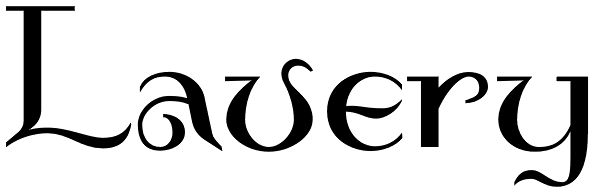
Lavery
Lavery is a calligraphic display face, drawing its inspiration from the designs of the early years of the 20th century. It has an extensive range of ligatures and other opentype features and a delightfully hand-drawn feel. Lavery combines a great...